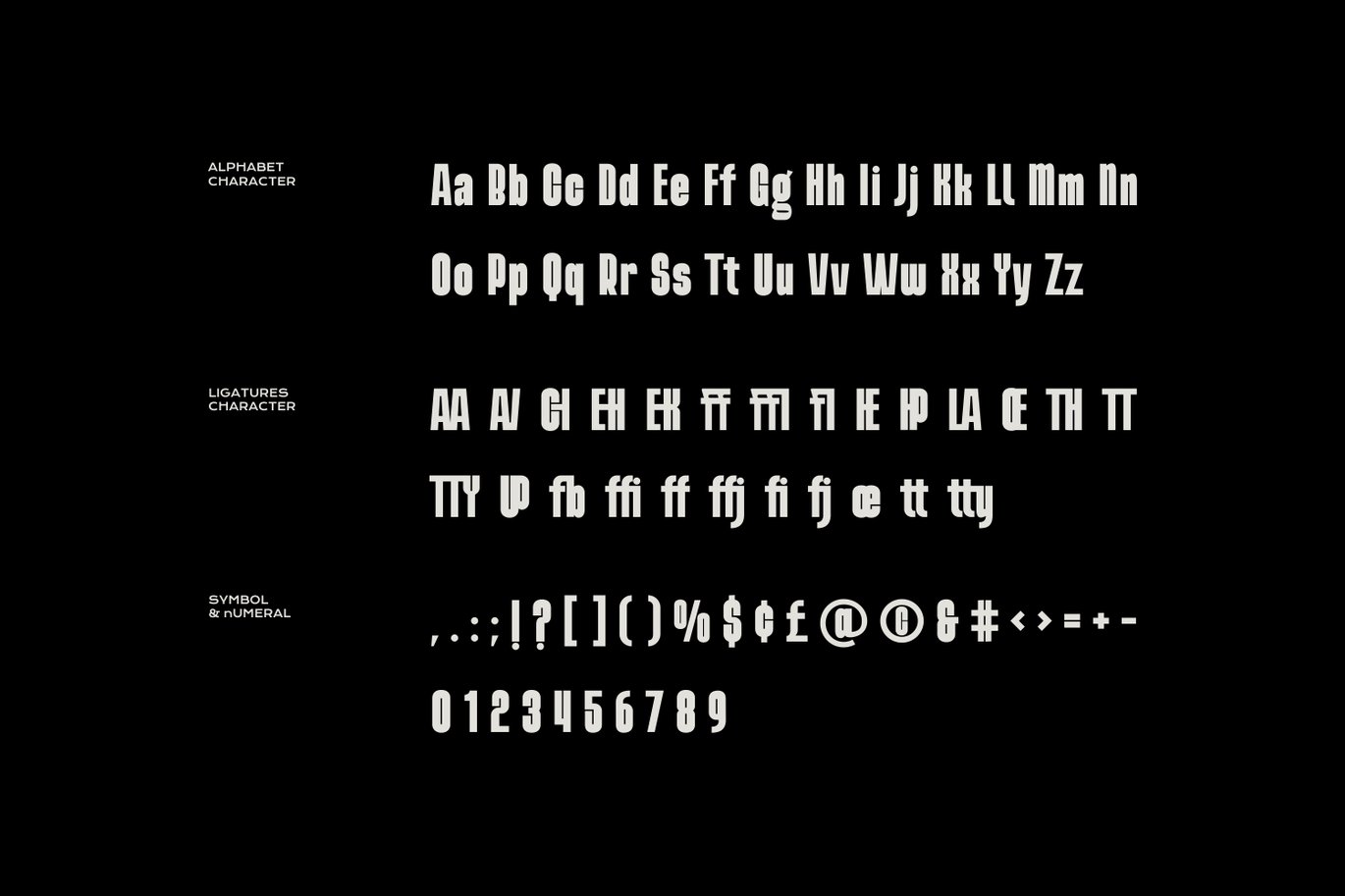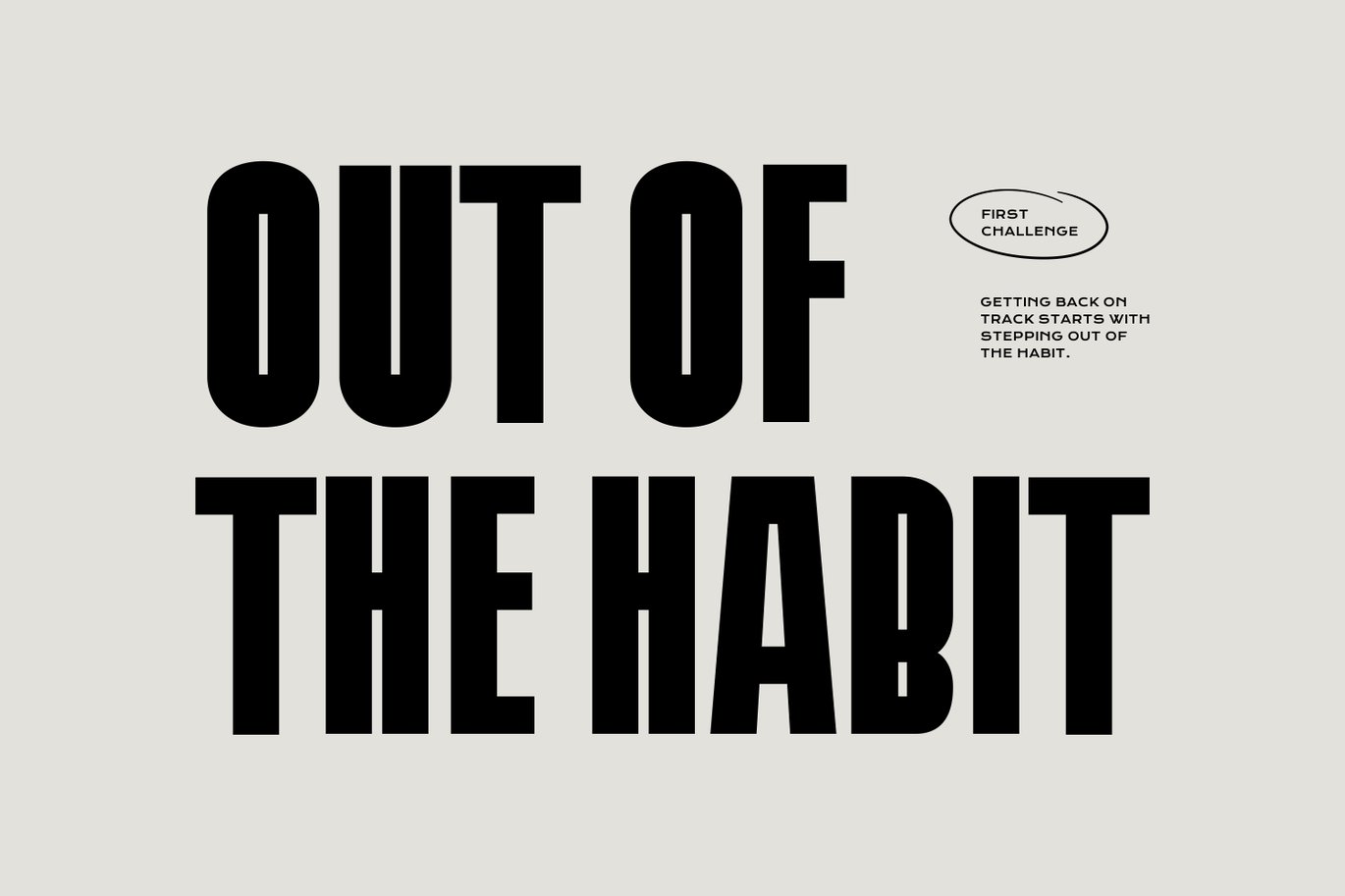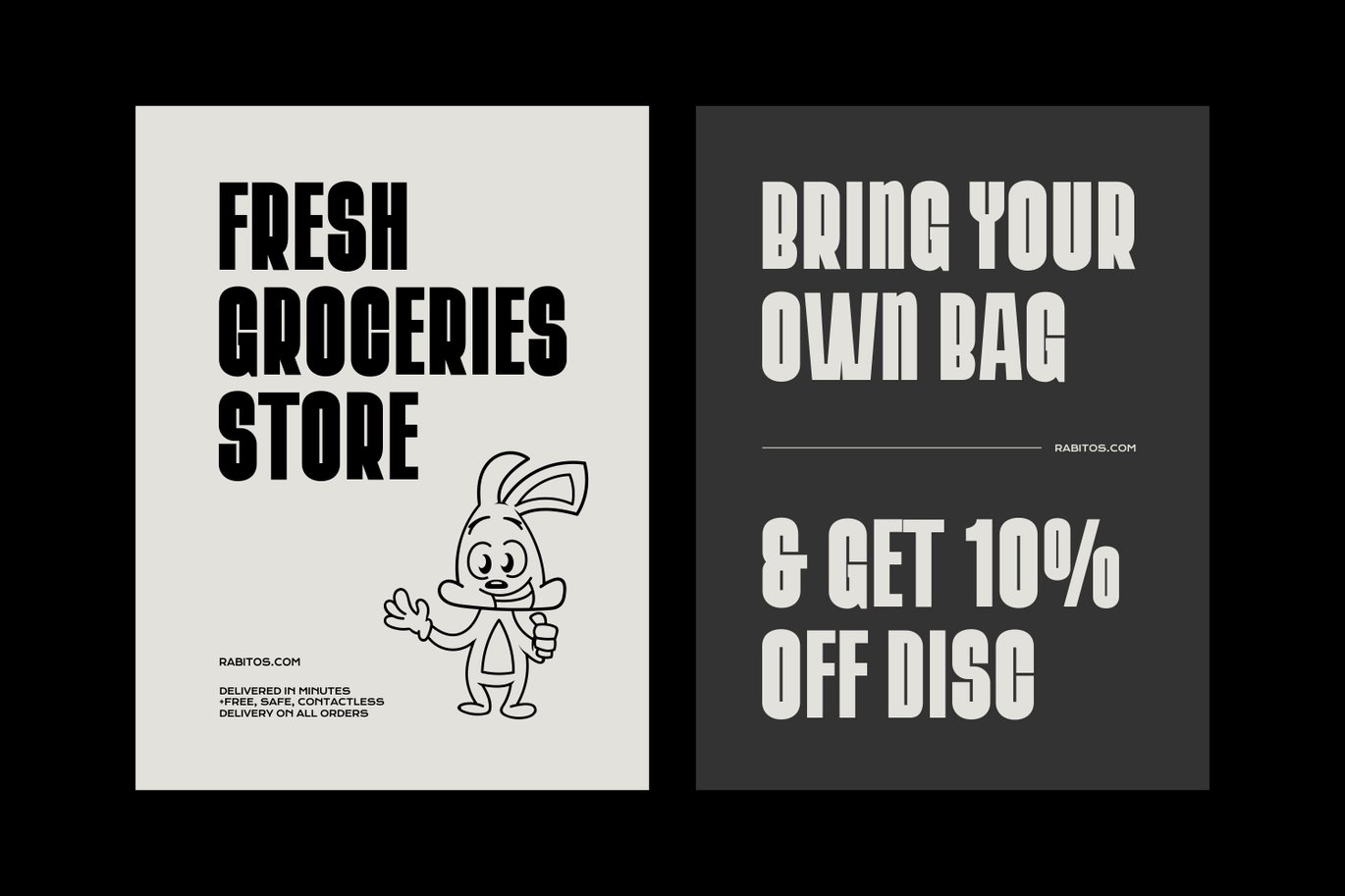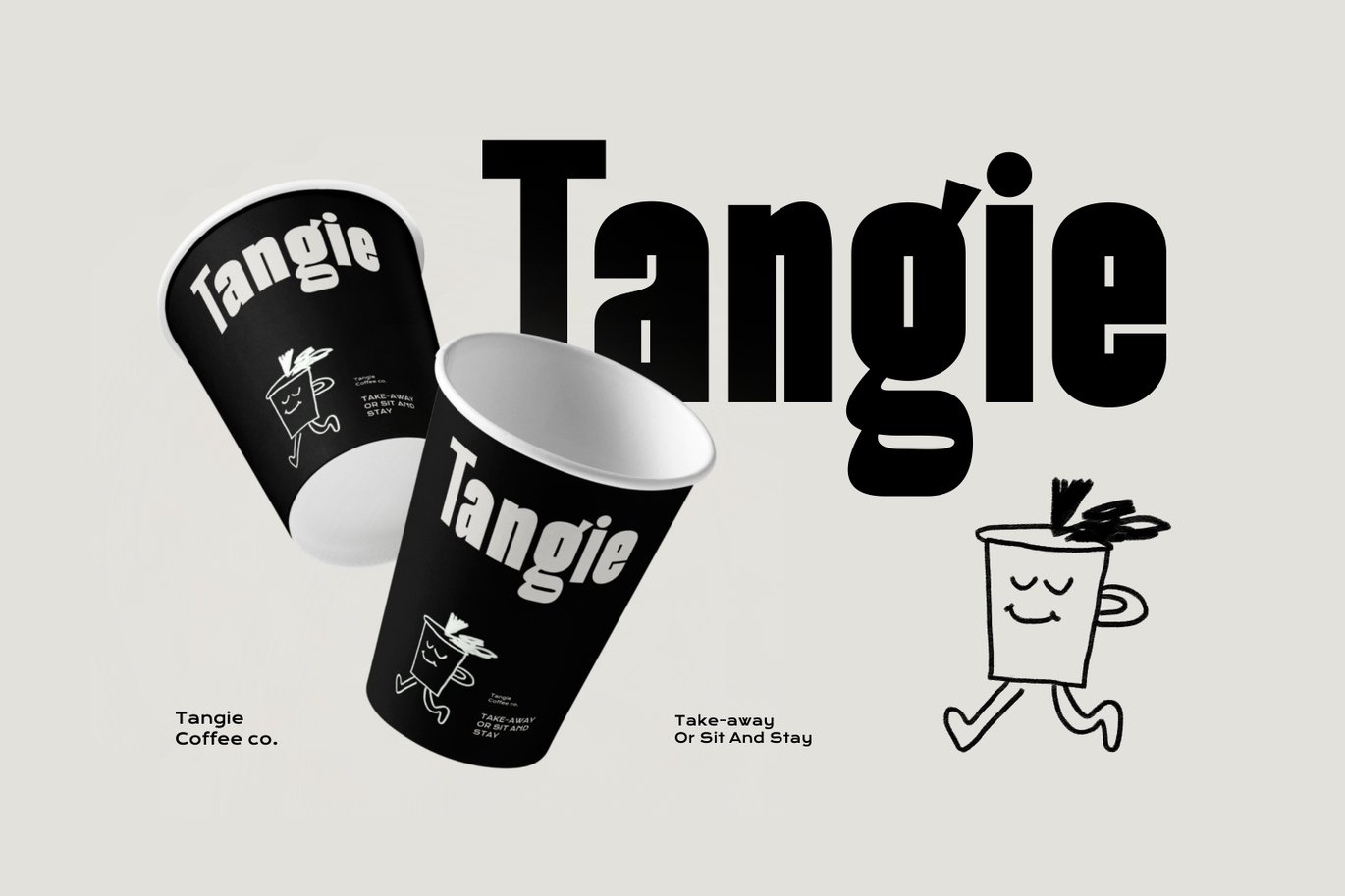
Rogalle – Condensed Sans Serif Display Font
Rogalle is a bold and condensed sans-serif font, drawing inspiration from the sleek modern designs of the 2000s. It has a strong, modern, and impactful look with thick letterforms.
The high contrast and geometric structure make it this font ideal for advertising, captivating website headlines, poster, branding, coffee shop, editorial design, creative packaging, and sleek interface designs.